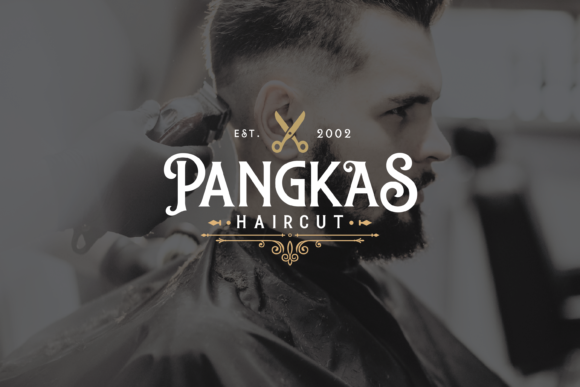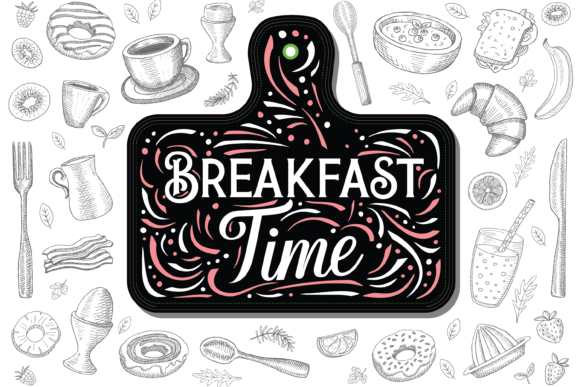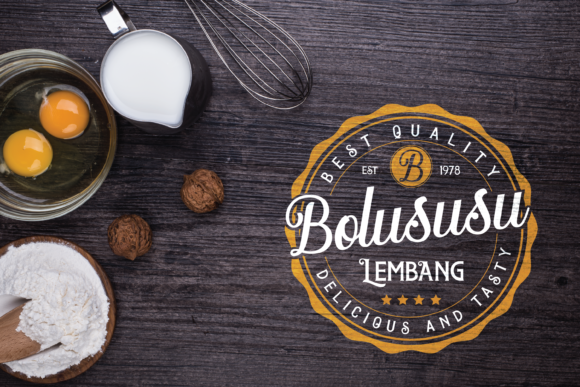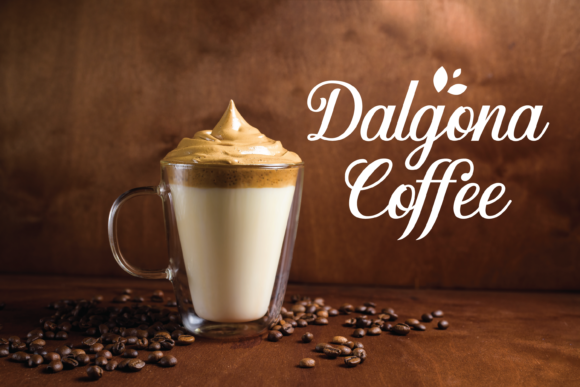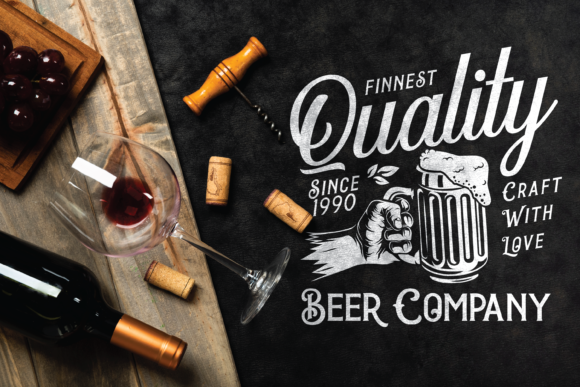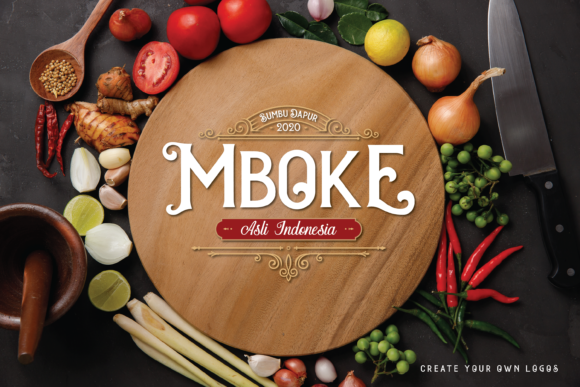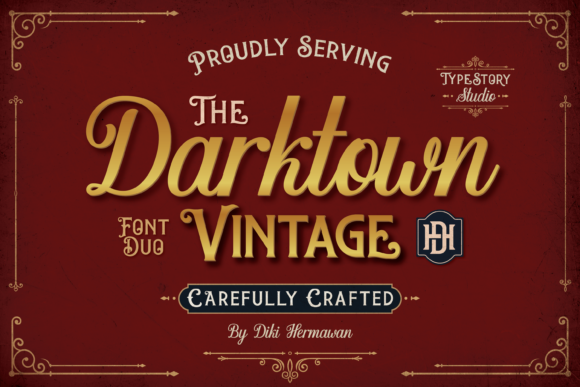
Introducing Darktown Font: A Vintage Display Font for Creative Projects
Are you a designer or crafter looking for a unique and stylish font to elevate your creative projects? Look no further than Darktown Font, a vintage display font that is perfect for posters, logos, flyers, branding, and packaging. With its classic charm and modern appeal, Darktown Font is sure to add a touch of sophistication and elegance to any design.
What is Darktown Font?
Darktown Font is a carefully crafted vintage display font that features two distinct styles, allowing you to add depth and versatility to your designs. Whether you’re creating a bold and eye-catching poster or a subtle and sophisticated logo, Darktown Font has got you covered. Its unique blend of classic and modern elements makes it an ideal choice for designers and crafters who want to add a touch of nostalgia and whimsy to their work.
Key Features of Darktown Font
• Two Styles: Darktown Font features two distinct styles that can be used separately or together to create a unique and visually appealing design.
• Bonus Text Styles: In addition to the two main styles, Darktown Font also comes with bonus text styles that can be used to add an extra layer of depth and interest to your designs.
• Perfect for Display Text: Darktown Font is optimized for display text, making it perfect for posters, logos, flyers, and other creative projects where you want to make a bold statement.
• Vintage Charm: Darktown Font has a classic, vintage charm that is sure to add a touch of nostalgia and whimsy to your designs.
Uses for Darktown Font
Darktown Font is a versatile font that can be used for a wide range of creative projects, including:
• Posters: Use Darktown Font to create bold and eye-catching posters that grab attention and make a statement.
• Logos: Darktown Font is perfect for creating unique and memorable logos that reflect your brand’s personality and style.
• Flyers: Add a touch of sophistication and elegance to your flyers with Darktown Font.
• Branding: Use Darktown Font to create a consistent brand identity that sets you apart from the competition.
• Packaging: Darktown Font is a great choice for packaging design, adding a touch of vintage charm and whimsy to your product labels and packaging materials.
Why Choose Darktown Font?
With so many fonts to choose from, why should you choose Darktown Font? Here are just a few reasons:
• Unique and Distinctive: Darktown Font is a unique and distinctive font that will set your designs apart from the competition.
• High-Quality: Darktown Font is a high-quality font that is carefully crafted to ensure that it looks great in any design.
• Versatile: Darktown Font is a versatile font that can be used for a wide range of creative projects.
• Easy to Use: Darktown Font is easy to use and comes with a simple and intuitive design.
In conclusion, Darktown Font is a vintage display font that is perfect for designers and crafters who want to add a touch of classic charm and modern appeal to their creative projects. With its two distinct styles, bonus text styles, and versatile design, Darktown Font is sure to become a go-to font in your design arsenal. So why wait? Download Darktown Font today and start creating stunning designs that will leave a lasting impression!